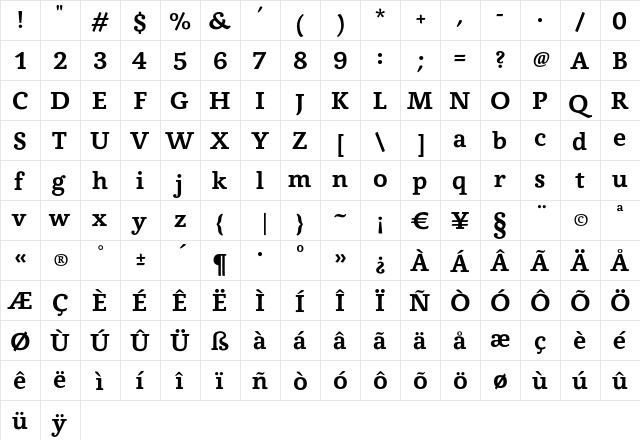
CarrefourSerif SemiBold
Design Context for CarrefourSerif Typeface
CarrefourSerif carries the refined structure of traditional serif typography, with bracketed terminals and considered proportions that communicate credibility and craft. Its bold stroke weight gives it real presence on the page.
Pro Tip: Set CarrefourSerif with slightly loose tracking in headlines to let each letterform's detail read clearly at display sizes.